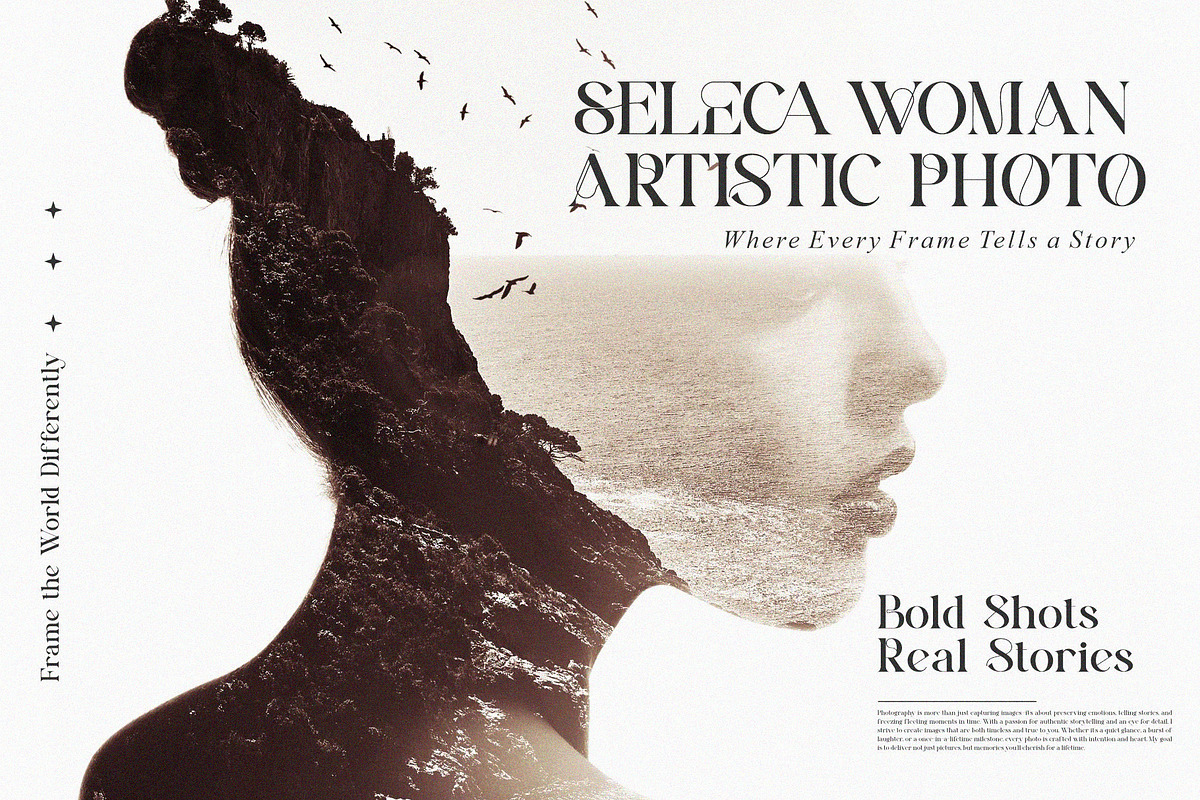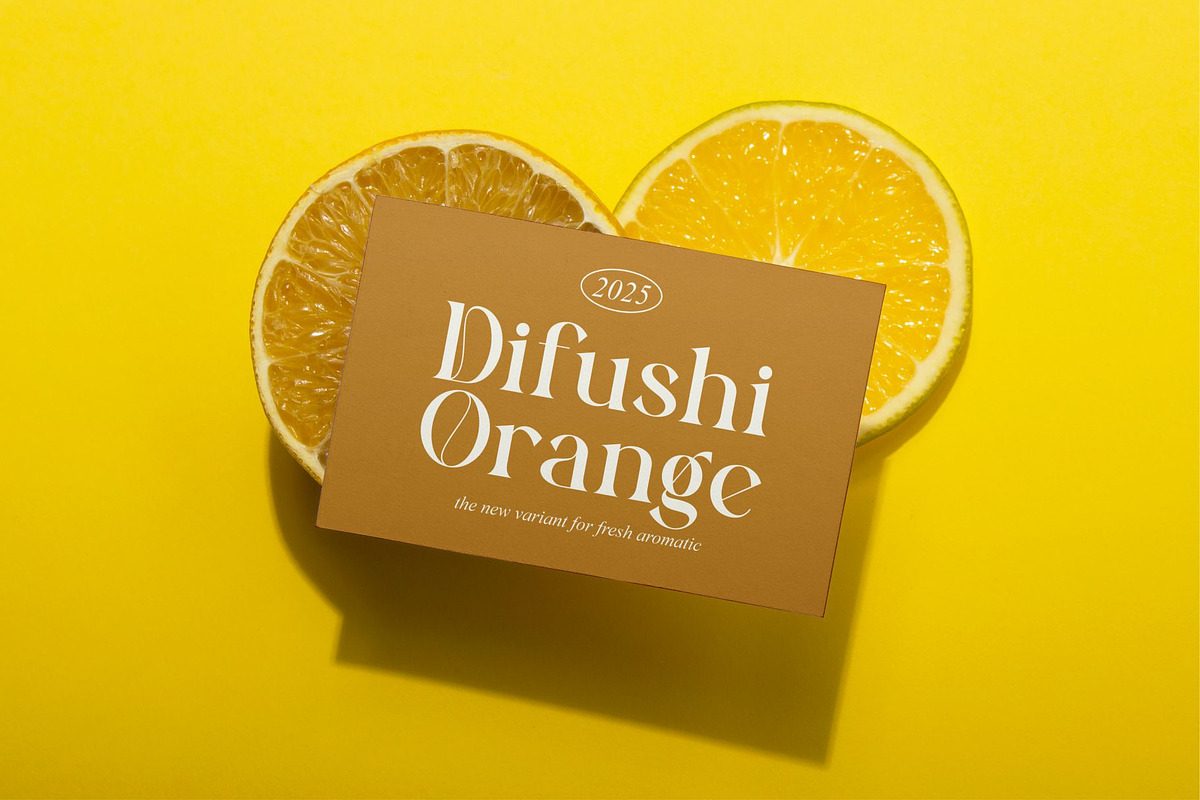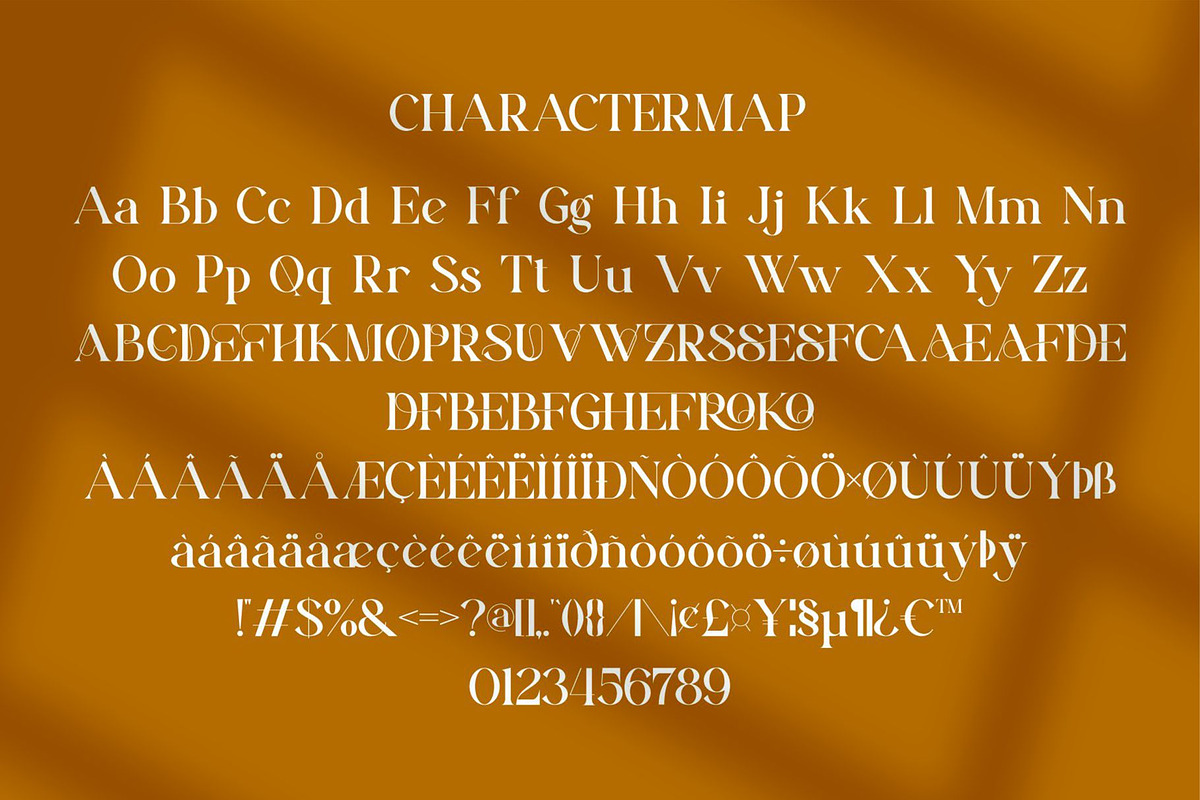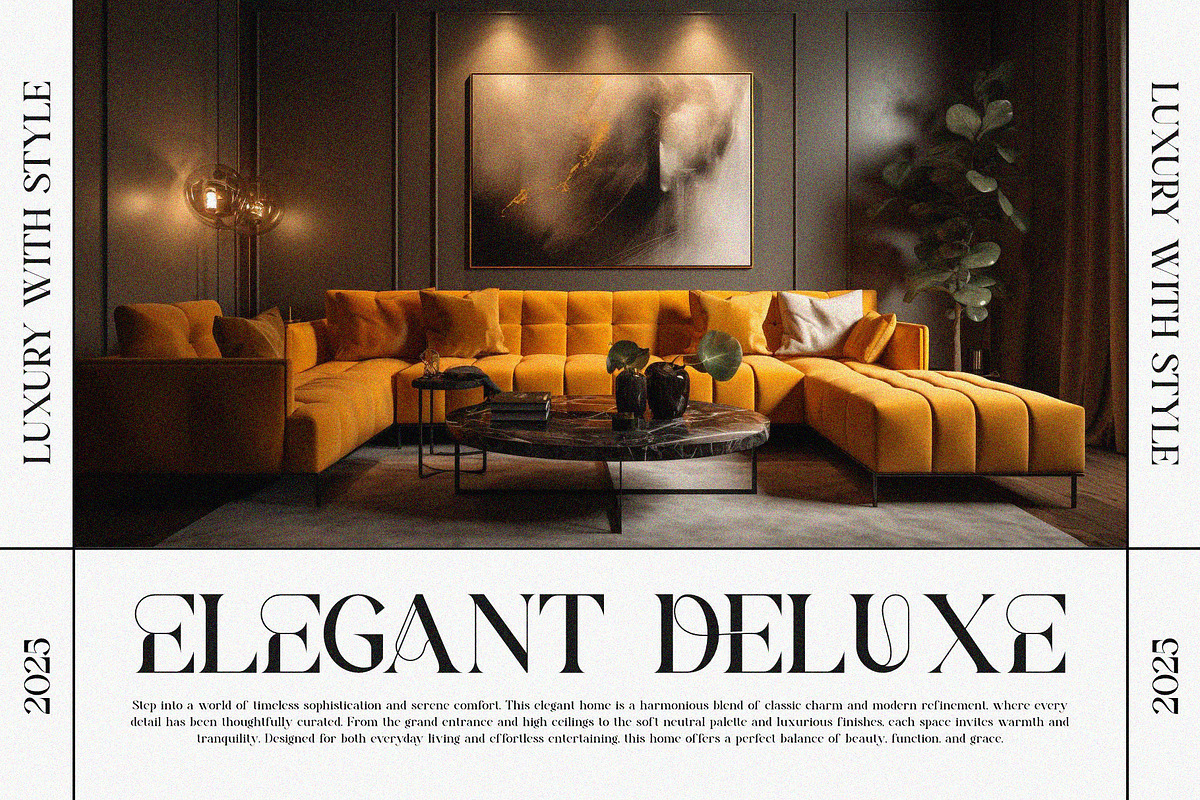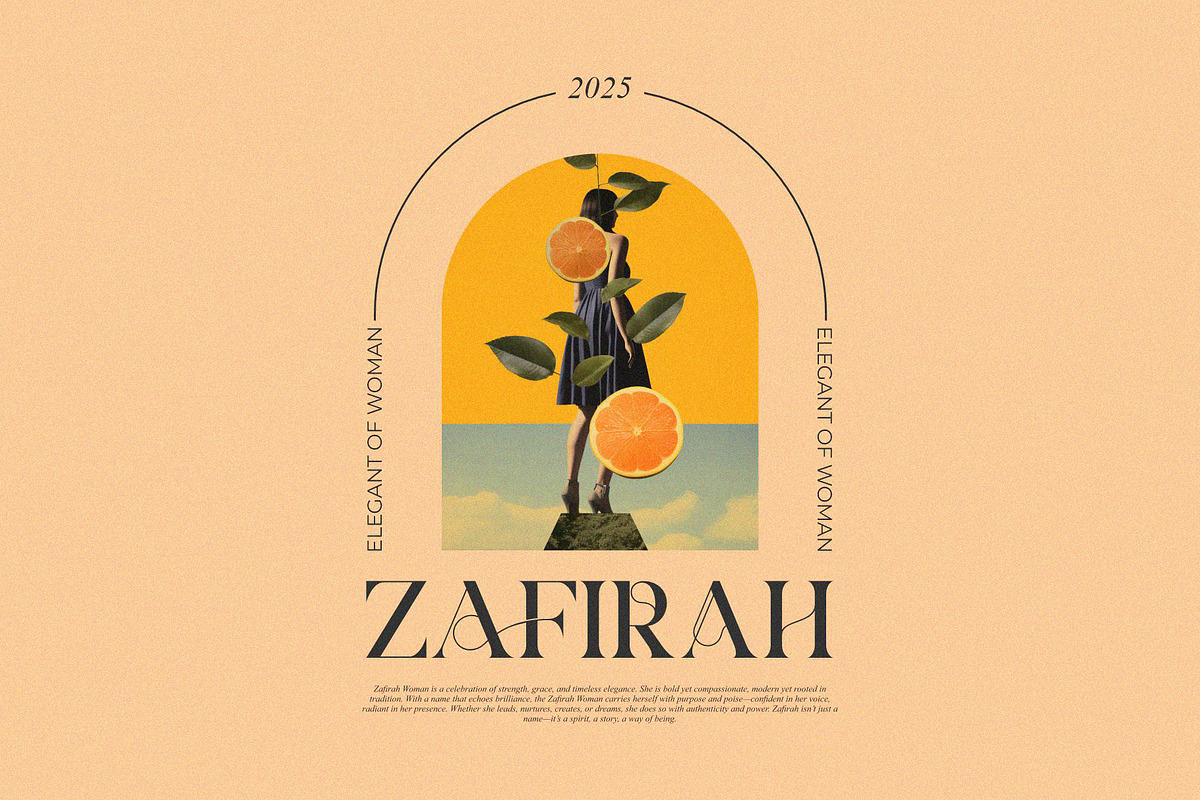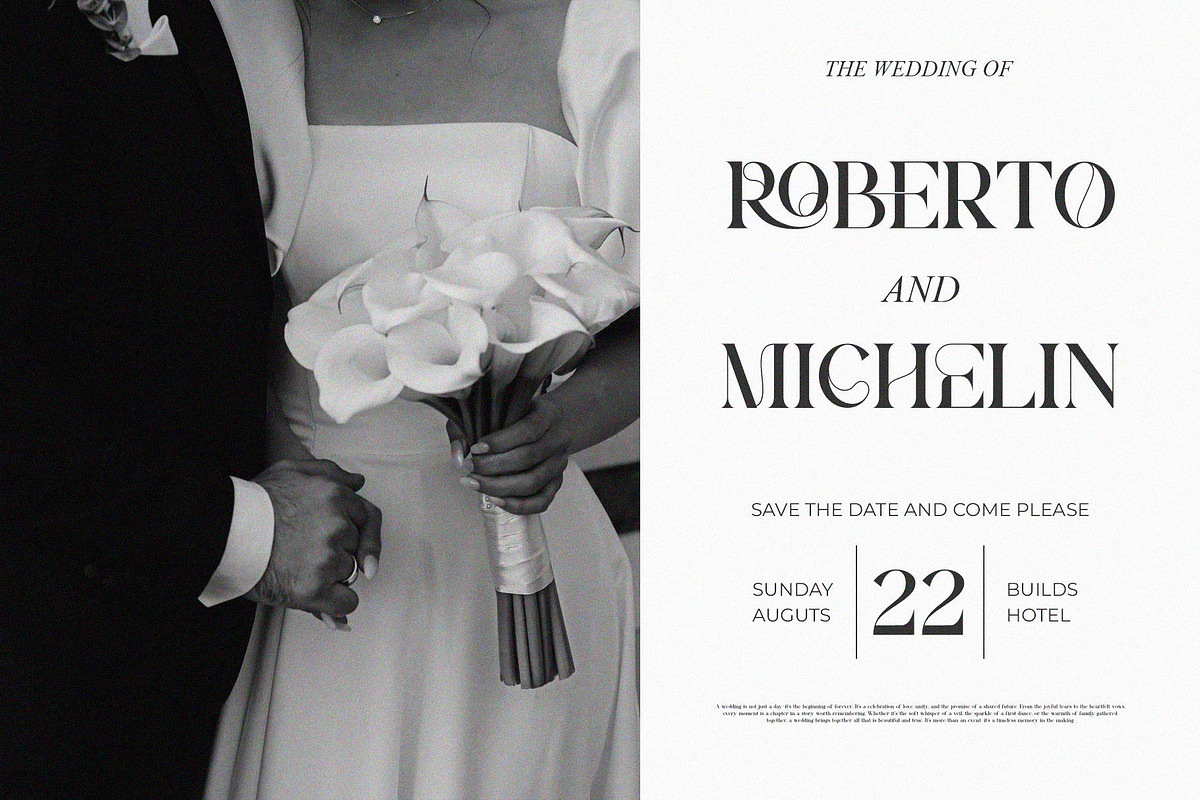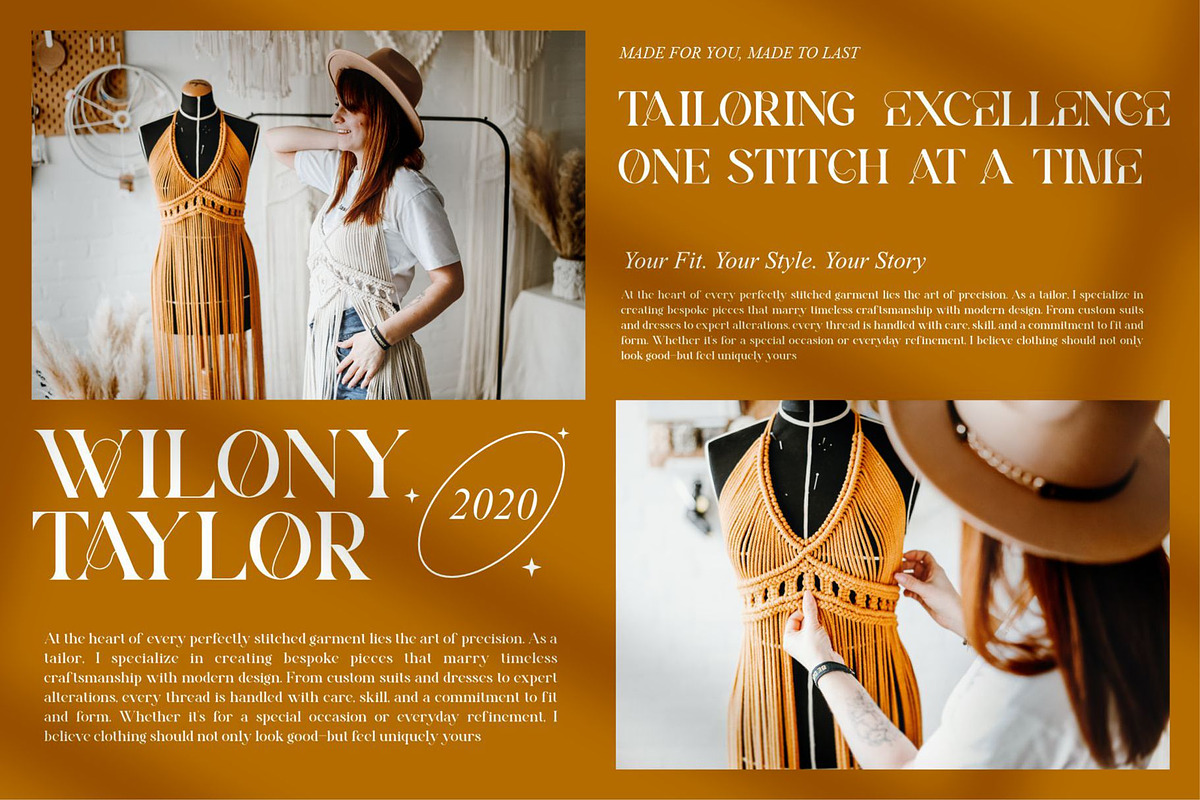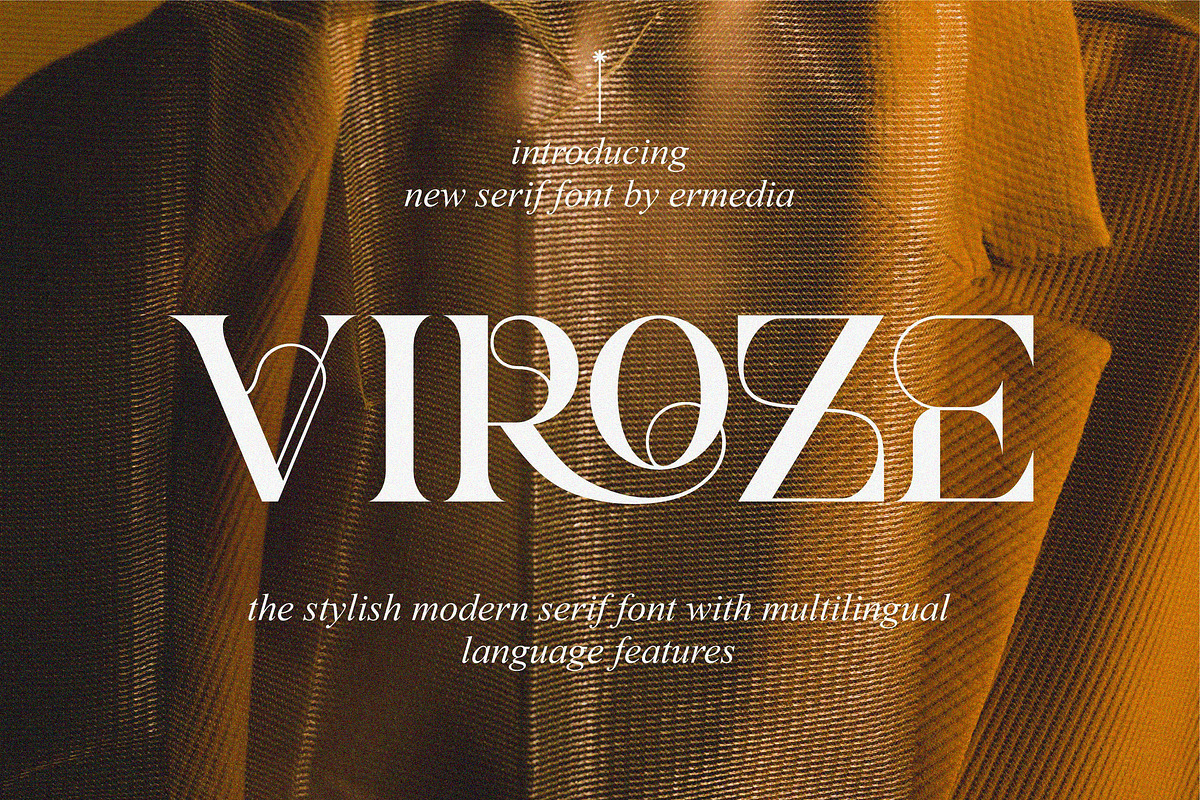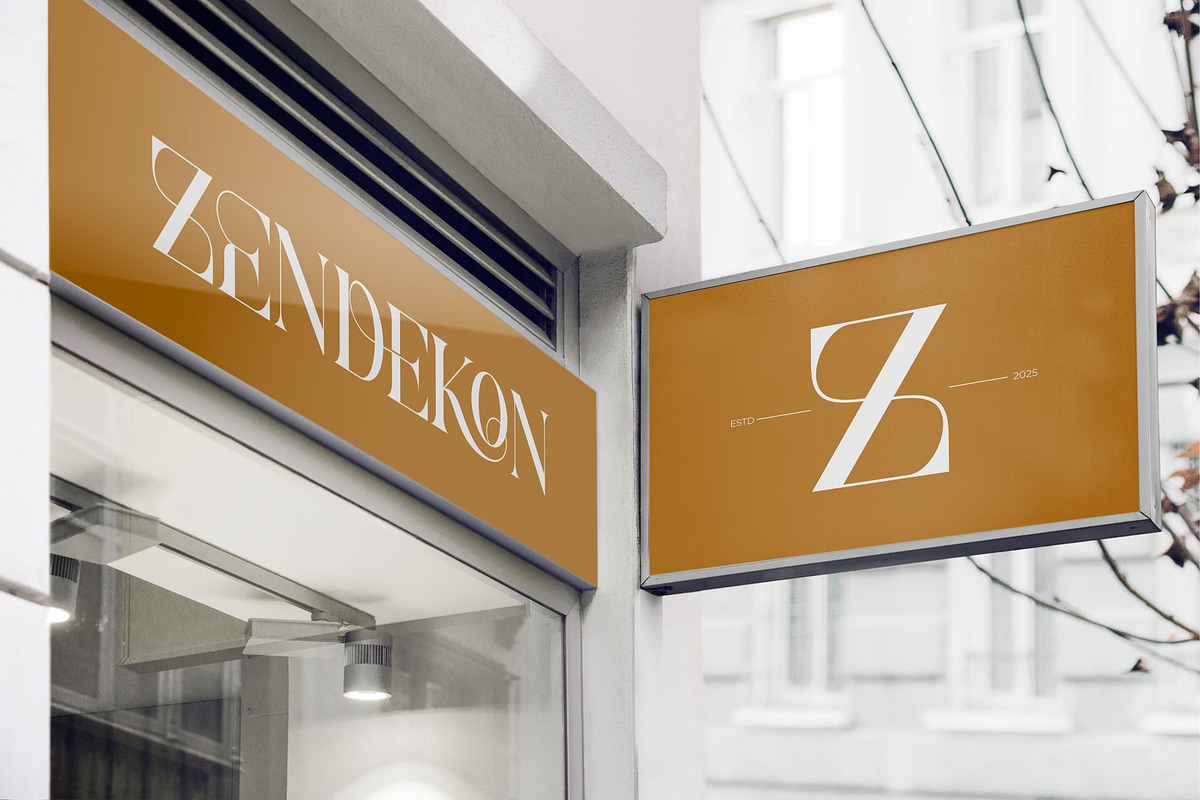
Viroze || Unique Serif Font
Viroze Serif is a modern and classy font type for all branding and logo designs. This modern and classy Serif font has a beautiful character. This font is suitable for invitation card designs, cool logos, movie titles, movie names, business cards, book titles, brand names, and various other designs. Viroze Serif is a smooth serif font that exudes sophistication and the moment. Its stylish ligatures make this font a perfect partner for any project.